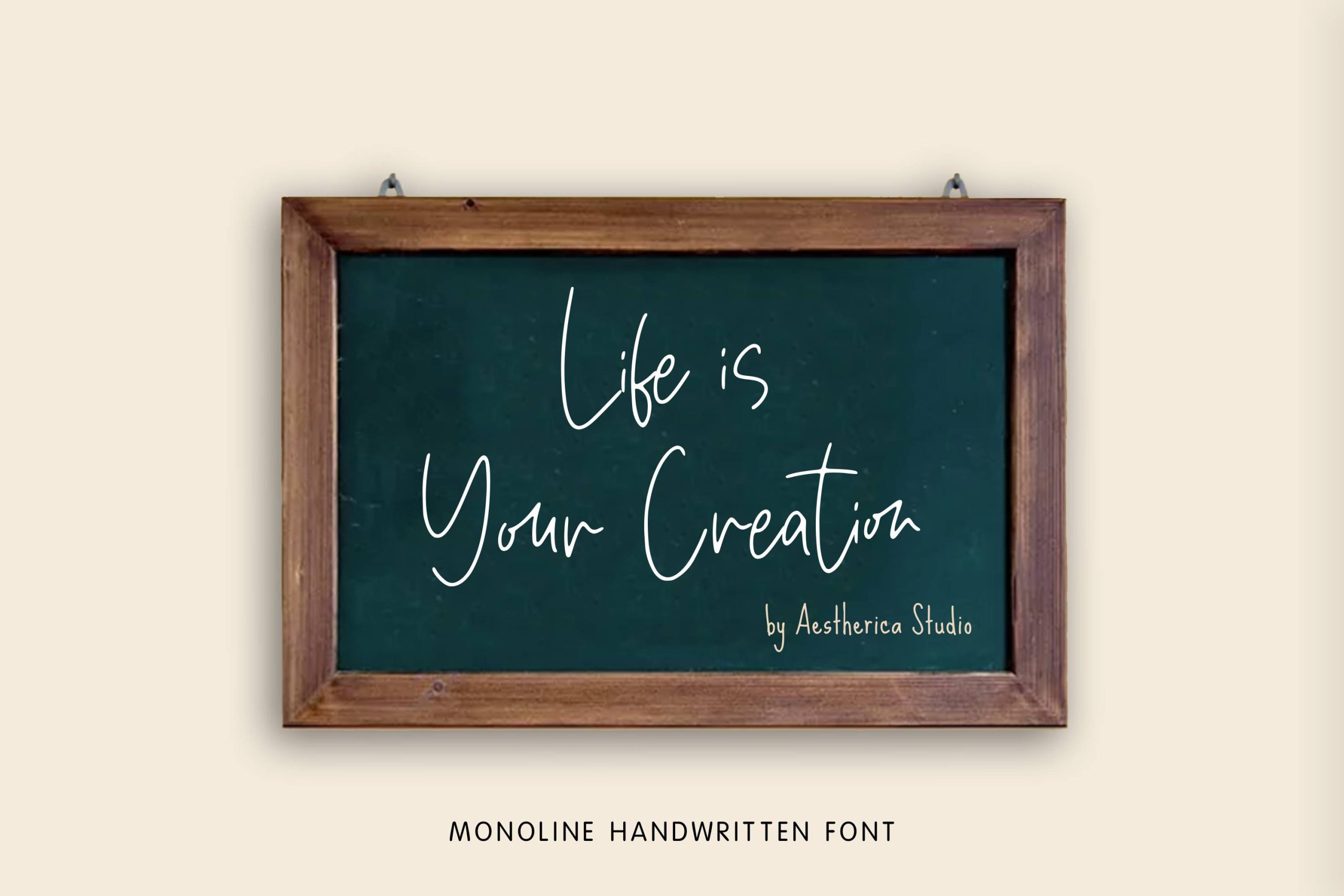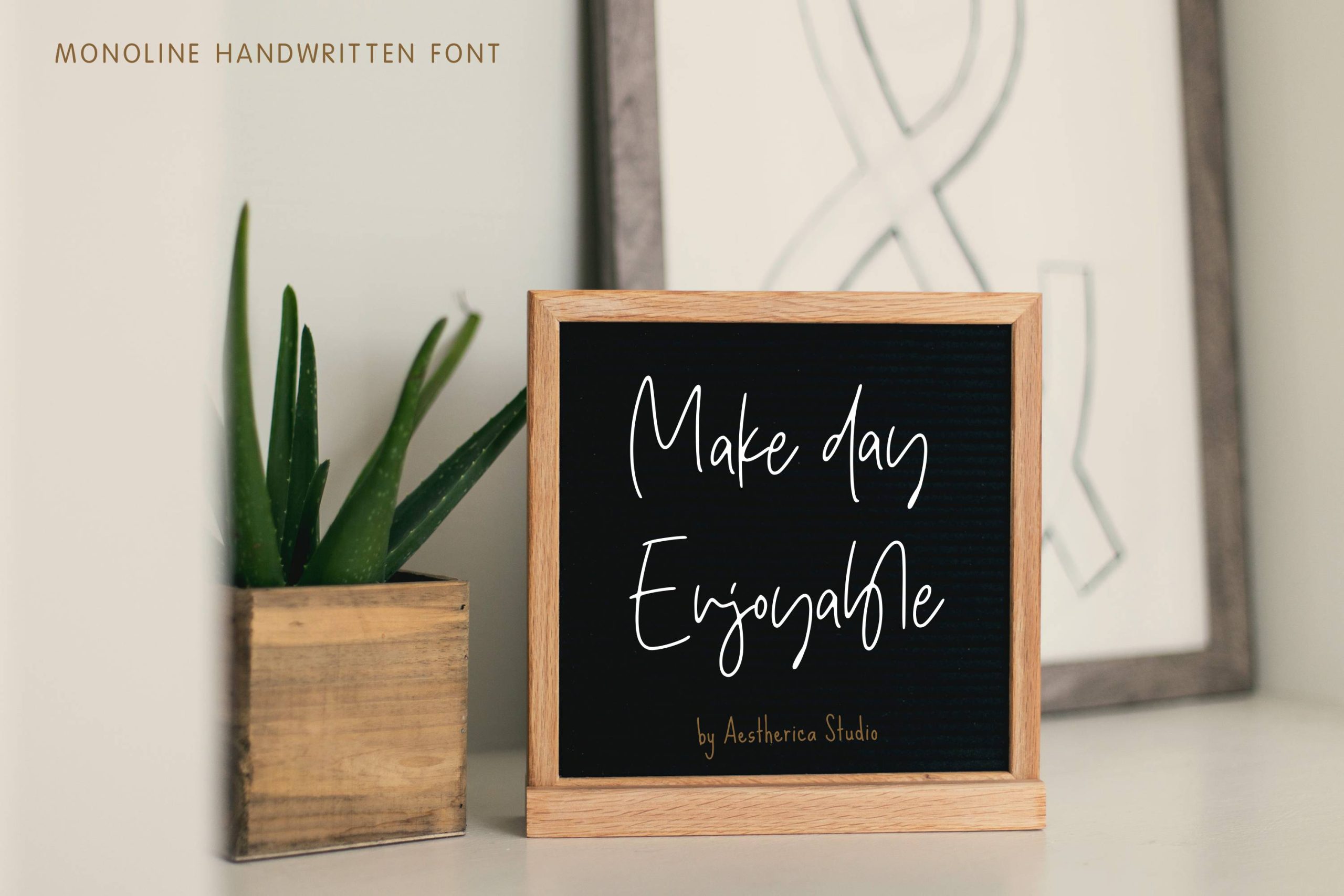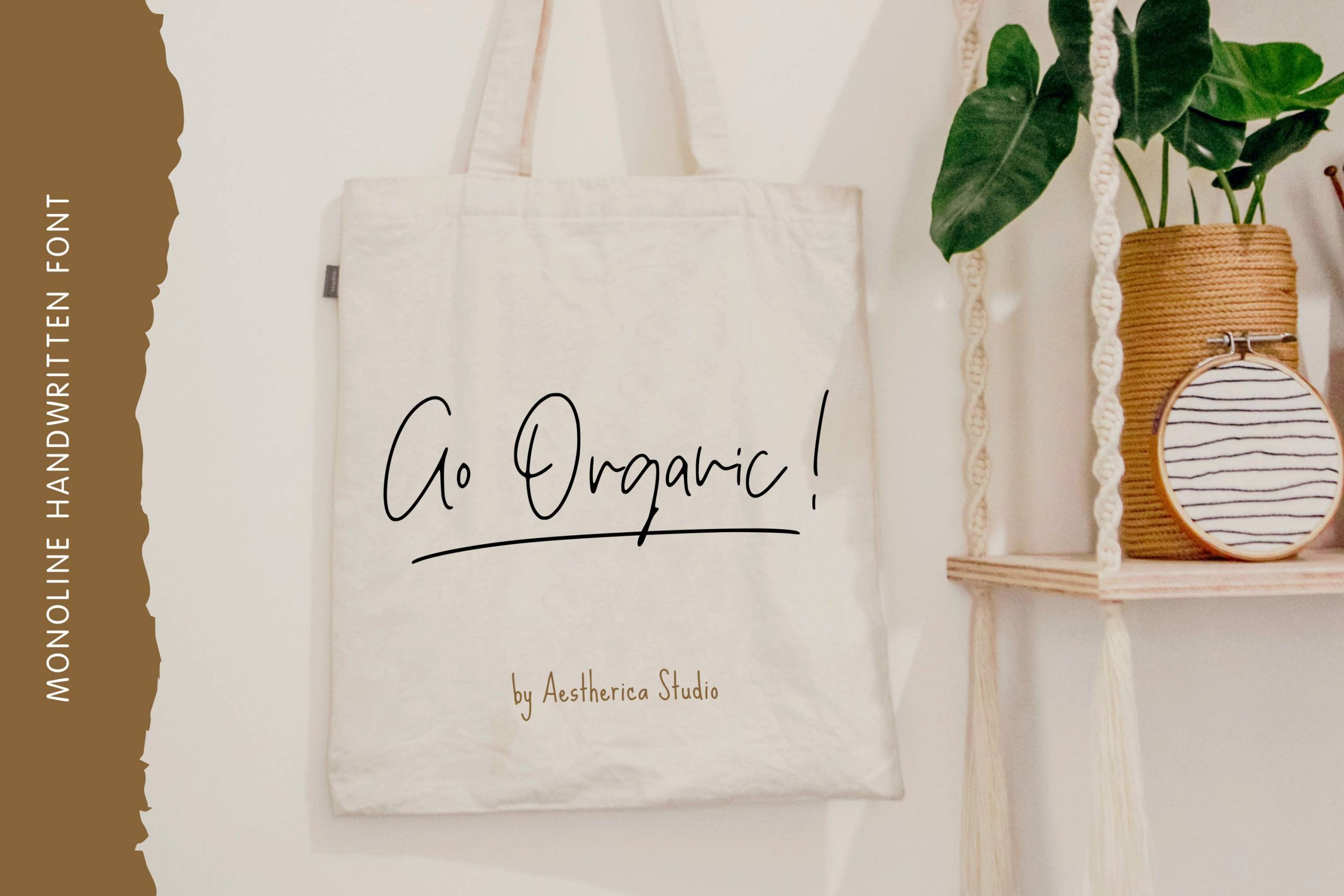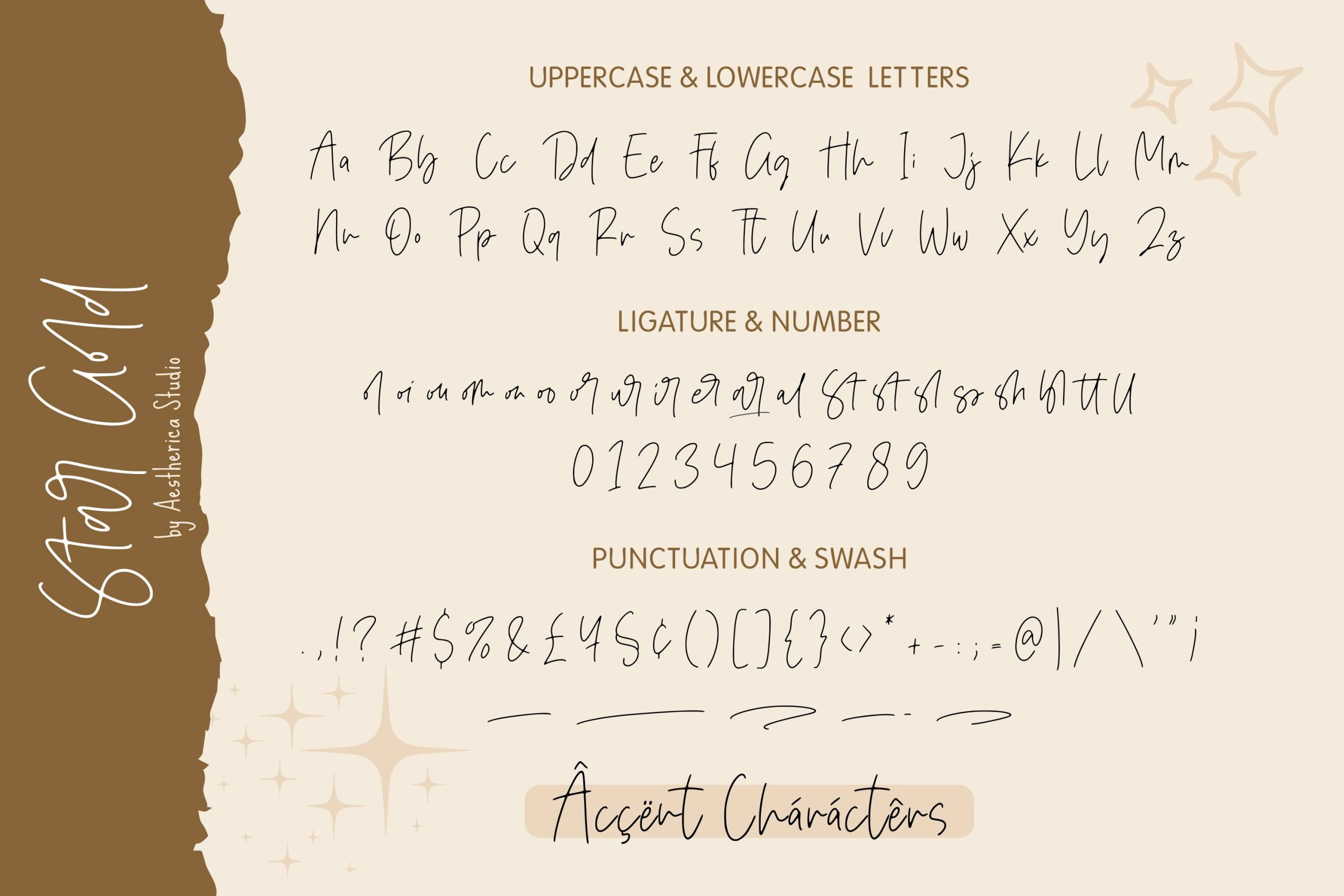
Star Gold Font
Star Gold Handwritten Font
This is a delicate, elegant, and flowing monoline handwritten font. It has beautiful and well-balanced characters, and as a result, it matches a wide pool of designs. Add it to your most creative ideas, and notice how it makes them come alive!